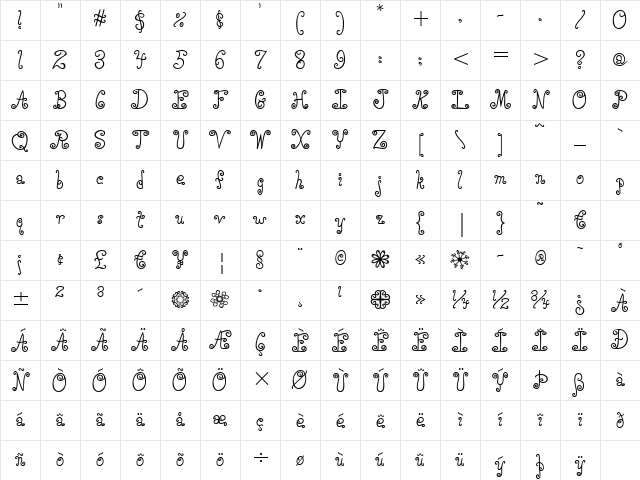
SissyBoy Extra BT Roman Free Font
SissyBoy Extra BT Roman
Design Context for SissyBoy Extra BT
SissyBoy Extra BT is a composed and adaptable typeface that performs quietly and consistently across a wide range of design contexts.